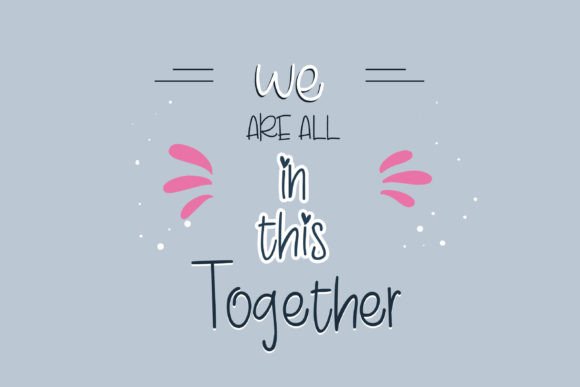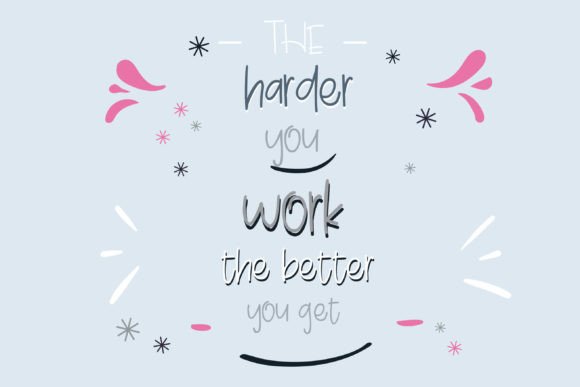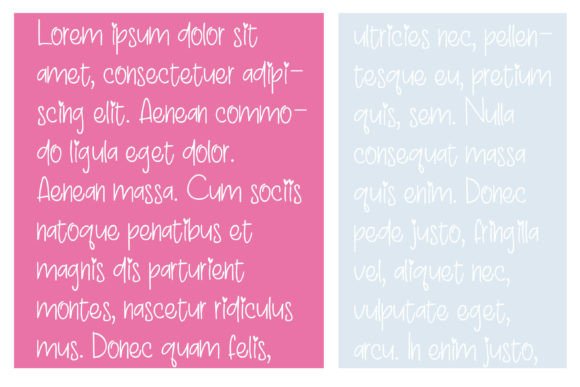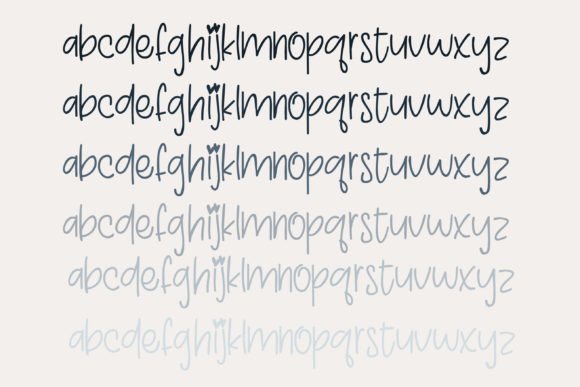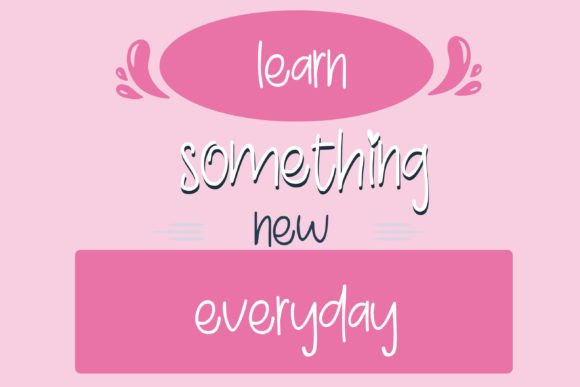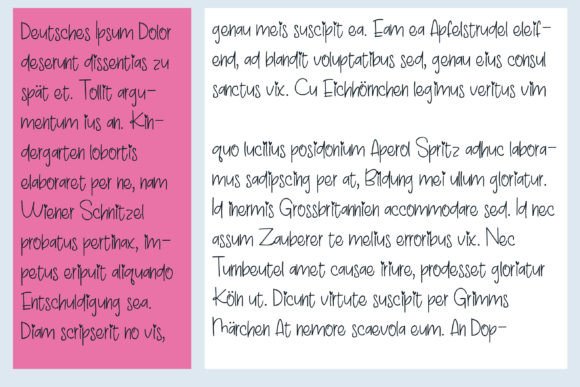
Falling in Love Font: The Perfect Choice for Elegant Designs
Are you looking for a font that exudes elegance and sophistication? Look no further than the Falling in Love font. This stunning handwritten font is perfect for creating beautiful designs, such as wedding invitations, luxurious branding, and refined documents. In this article, we’ll dive into the details of the Falling in Love font and explore its features, uses, and benefits.
What is Falling in Love Font?
Falling in Love is a charming handwritten font that features tiny elements nestled along the characters. These delicate details give the font a unique and romantic feel, making it ideal for designs that require a touch of elegance. The font is carefully crafted to provide a smooth and flowing reading experience, making it perfect for body text and headings.
Key Features of Falling in Love Font
- Handwritten style: The Falling in Love font boasts a beautiful handwritten style that adds a personal touch to any design.
- Charming details: The font features tiny elements along the characters, giving it a unique and romantic feel.
- Elegant and sophisticated: The font’s elegant and sophisticated design makes it perfect for high-end branding, wedding invitations, and refined documents.
- Versatile: The Falling in Love font can be used for a variety of design projects, from digital to print.
Uses of Falling in Love Font
The Falling in Love font is perfect for a wide range of design projects, including:
- Wedding invitations: The font’s elegant and romantic design makes it ideal for wedding invitations, save-the-date cards, and other wedding-related materials.
- Luxurious branding: The font’s sophisticated design makes it perfect for high-end branding, packaging, and advertising.
- Sophisticated documents: The font is suitable for creating refined documents, such as resumes, portfolios, and business proposals.
- Digital designs: The font can be used for digital designs, such as social media graphics, blog posts, and website headers.
Benefits of Using Falling in Love Font
Using the Falling in Love font offers several benefits, including:
- Unique and distinctive design: The font’s charming details and elegant design make it stand out from other fonts.
- Time-saving: The font’s versatility and wide range of uses save designers time and effort in finding the perfect font for their projects.
- Professional look: The font’s sophisticated design gives designs a professional and polished look.
- Easy to read: The font’s smooth and flowing design makes it easy to read, even for extended periods.
Tips for Using Falling in Love Font
To get the most out of the Falling in Love font, here are some tips:
- Use it for headings and titles: The font’s elegant design makes it perfect for headings and titles.
- Pair it with a simple font: Pair the Falling in Love font with a simple font for body text to create a beautiful contrast.
- Experiment with colors: The font looks great in a variety of colors, so don’t be afraid to experiment and find the perfect color scheme for your design.
- Use it consistently: Use the Falling in Love font consistently throughout your design to create a cohesive and polished look.
The Falling in Love font is a stunning handwritten font that adds a touch of elegance and sophistication to any design. Its charming details, versatile uses, and benefits make it a great choice for designers and crafters looking to create beautiful and refined designs. Whether you’re creating wedding invitations, luxurious branding, or sophisticated documents, the Falling in Love font is sure to impress.